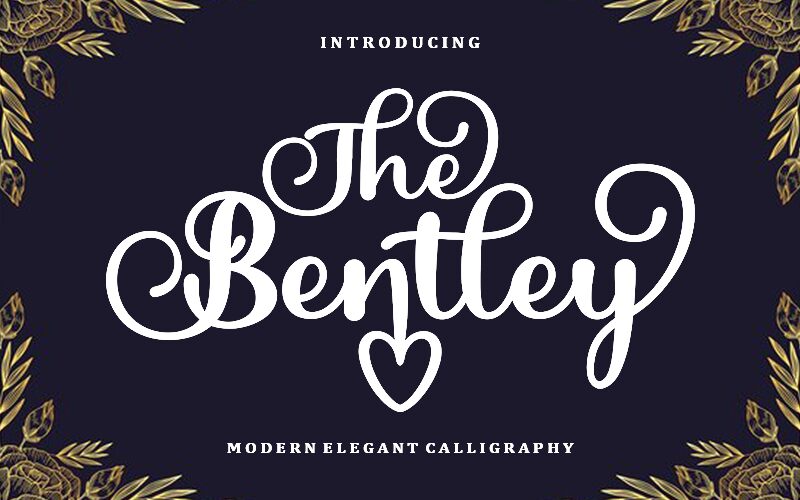
The Bentley, designed by Mu Fazzal, is a modern elegant calligraphy font that exudes grace and sophistication.
Its flowing curves and delicate strokes make it perfect for wedding invitations, elegant branding projects, and luxurious product packaging. The Bentley's timeless charm adds a touch of elegance to any project, whether it's creating stunning logos for high-end fashion brands or designing beautiful greeting cards.
With its refined aesthetic and versatility, The Bentley is the ideal choice for projects that demand a touch of class and sophistication.
Features: Lowercase Beginning & Ending Swashes & Ligatures.
Features : Lowercase Beginning & Ending Swashes & Ligatures.